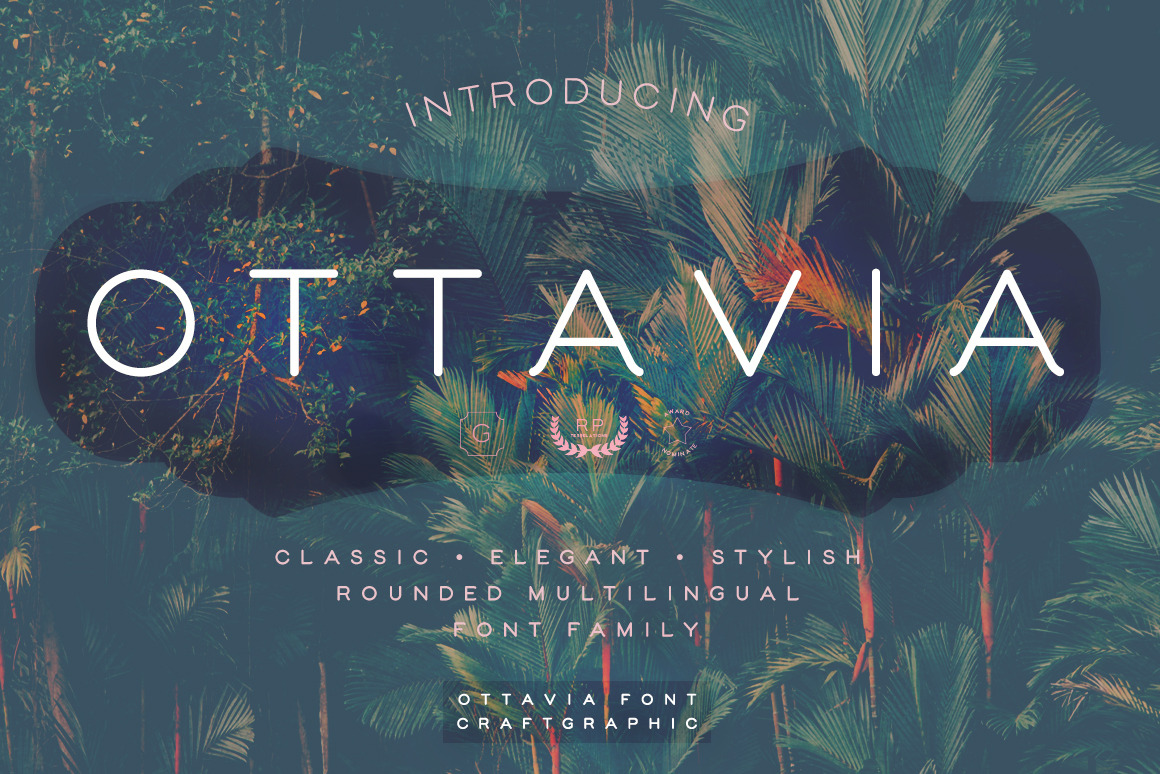
Ottavia - Rounded font
Ottavia Rounded Font is a modern and friendly sans-serif typeface with smooth, rounded edges, giving your designs a soft, approachable feel. Perfect for logos, branding, packaging, headlines, and web design, Ottavia adds a warm and professional touch to any project.
- Uppercase and lowercase letters
Ottavia's clean, rounded style is versatile, making it suitable for everything from tech and startup branding to playful and creative designs. Elevate your projects with this modern, rounded font!